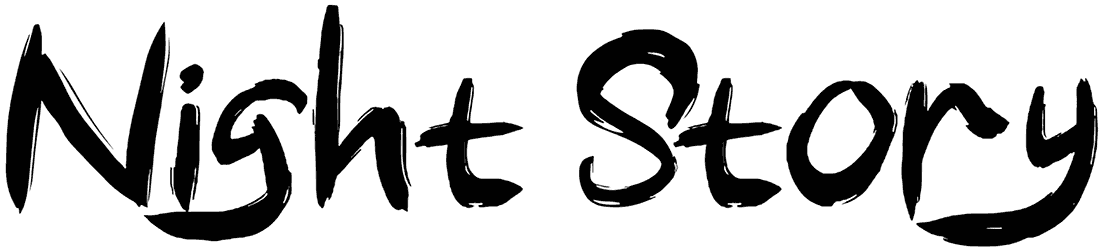
Night Story Font
The Night Story font stands out as an original option for a fancy horror font. This font is perfect for use in posters, ads, and book covers for horror-themed events and goods because of its creepy and ominous appearance.